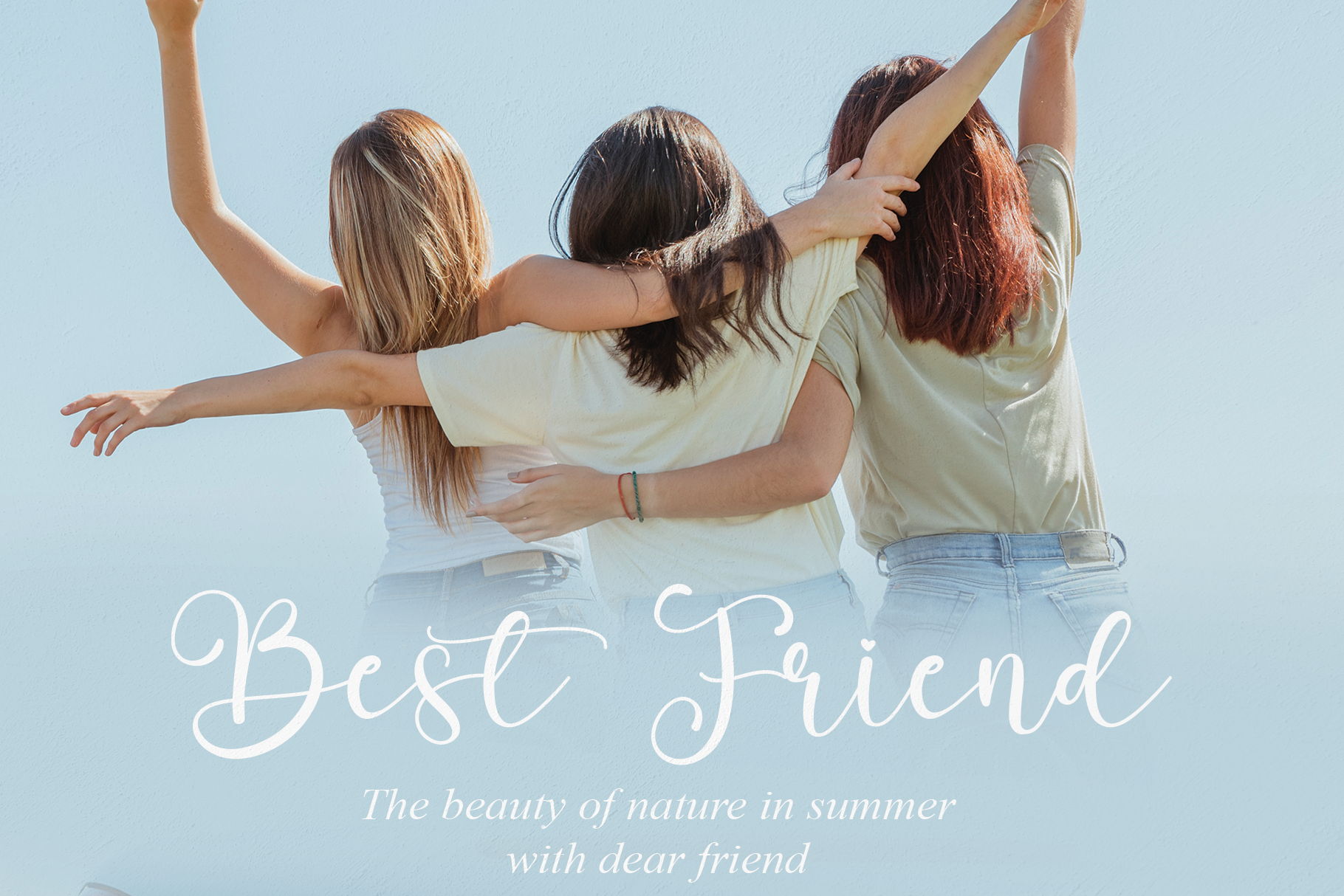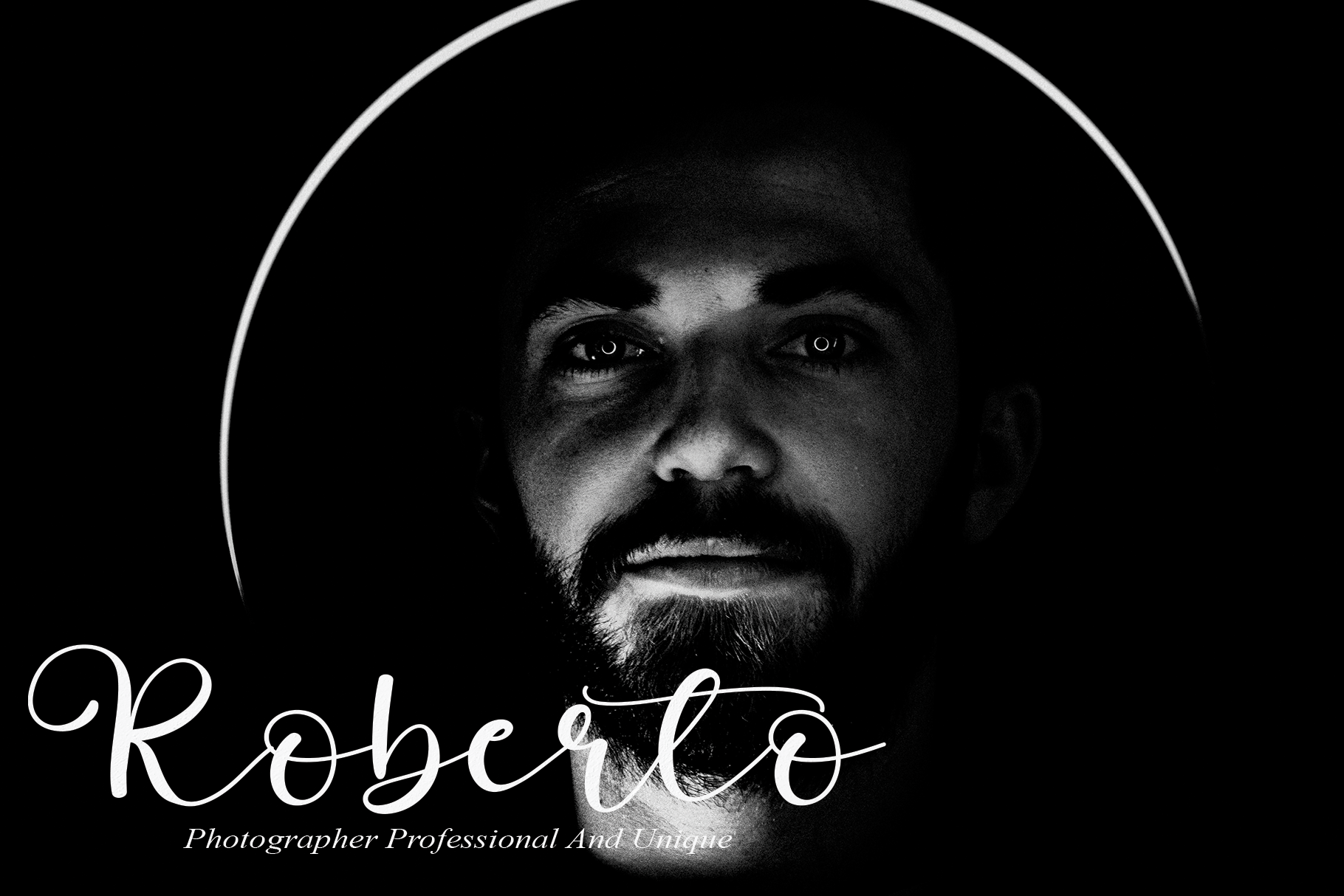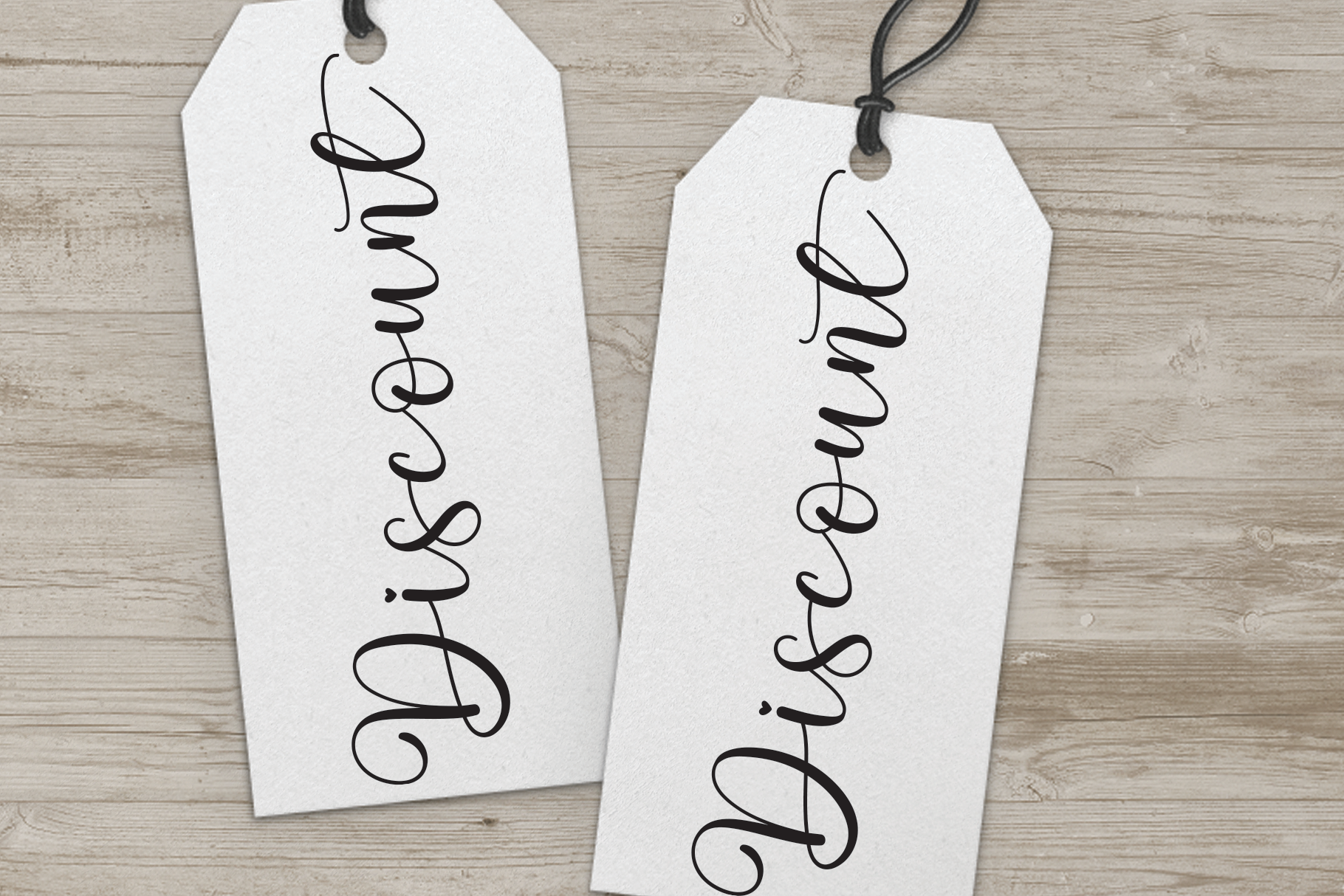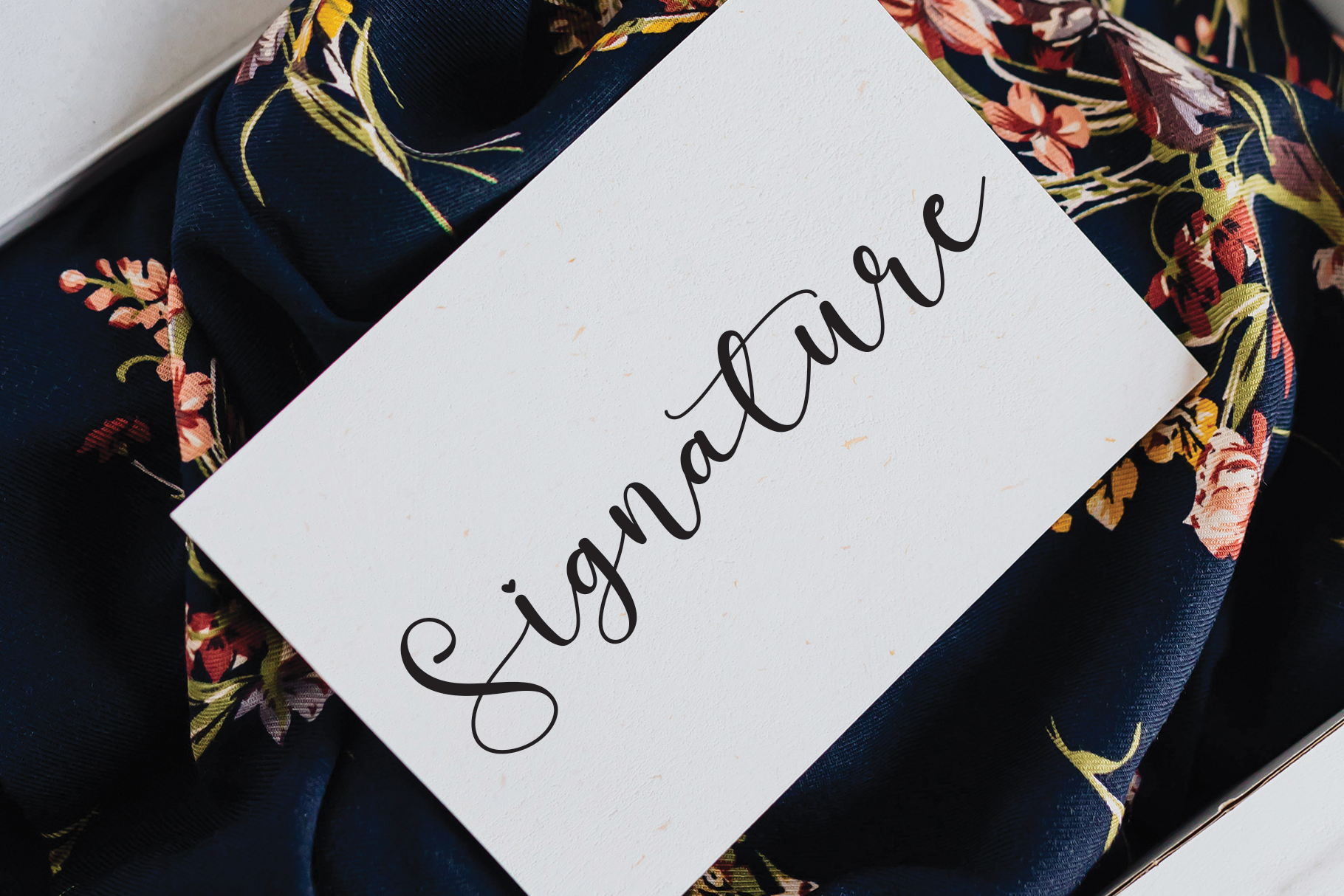
Grinch Typeface
Grinch Calligraphy Typeface
It’s a dazzling script font. Whatever the topic, this font will be a wonderful asset to your font library, as it has the potential to enhance any creation.
the latest style letters are perfect for wall displays, wedding invitations, social media post logos, advertisements, product packaging, product designs, labels, photography, watermarks, invitations, stationery, and any project that requires taste handwriting.